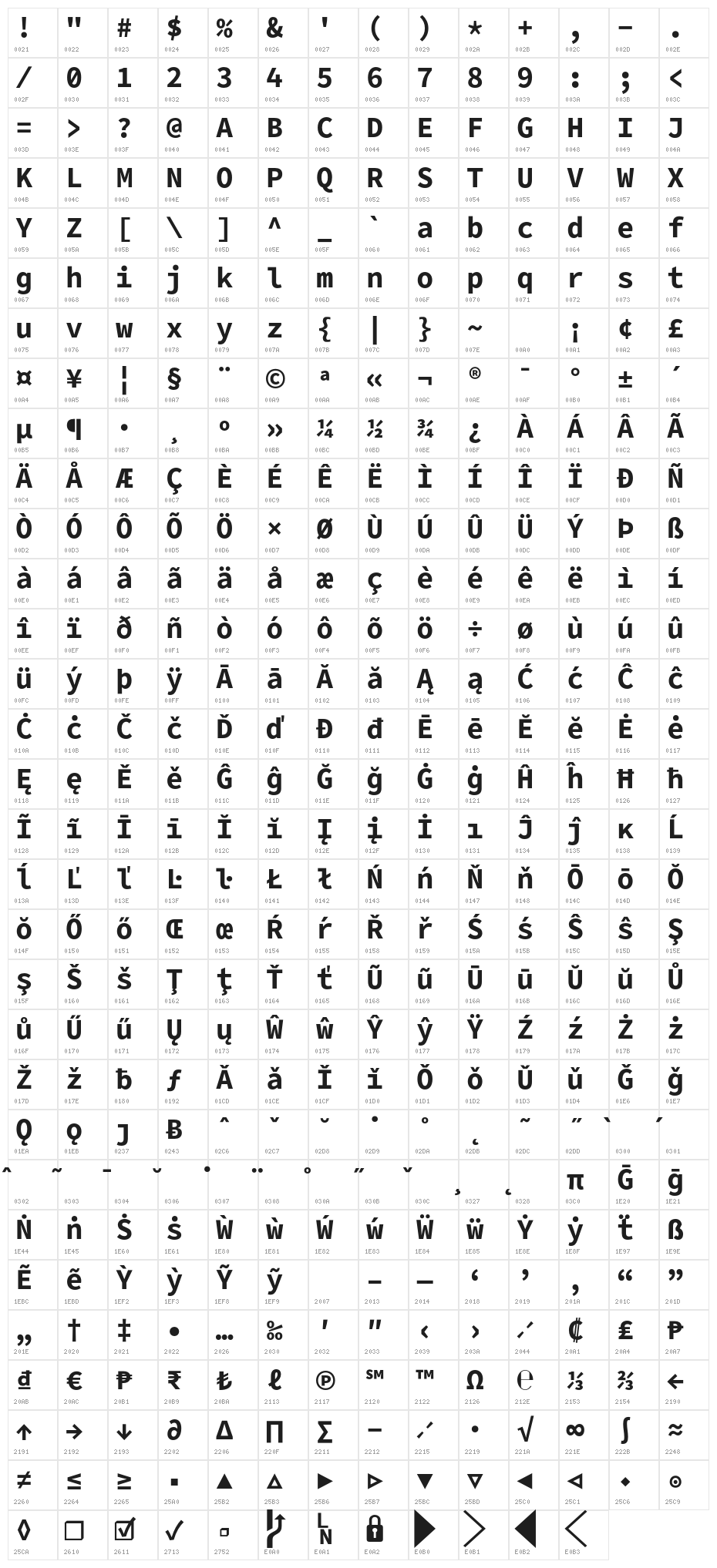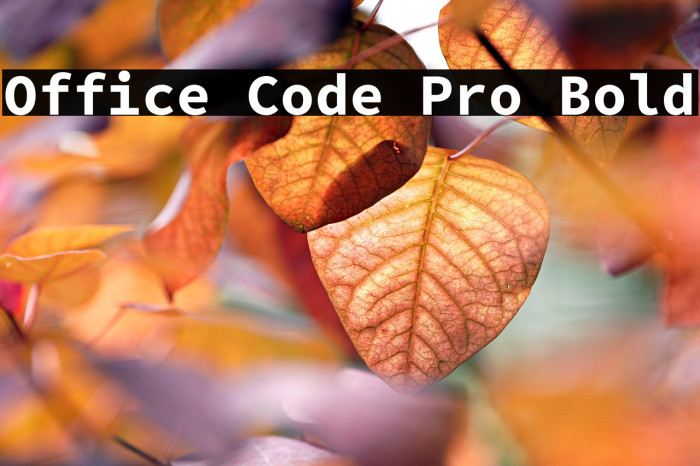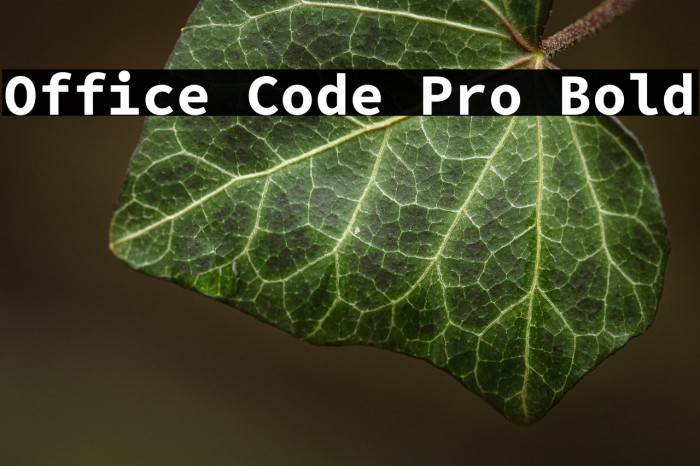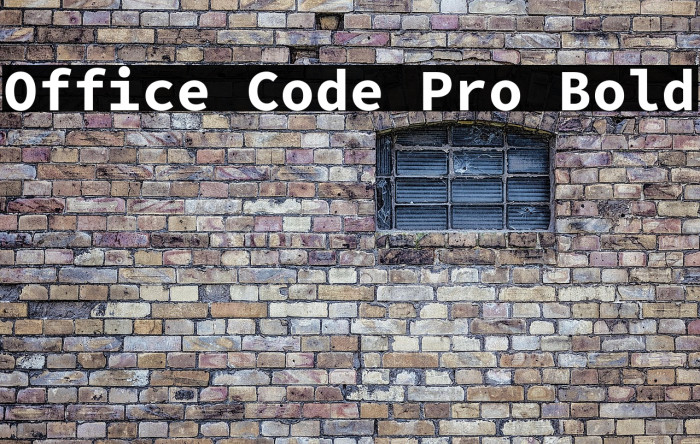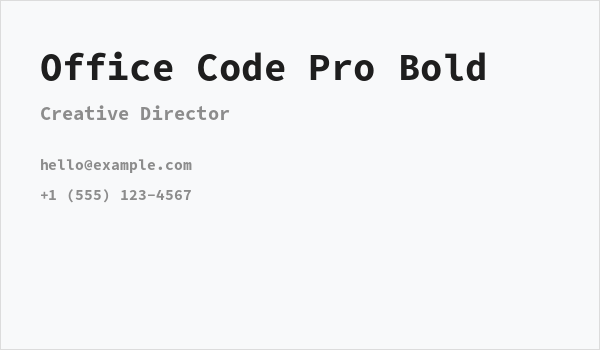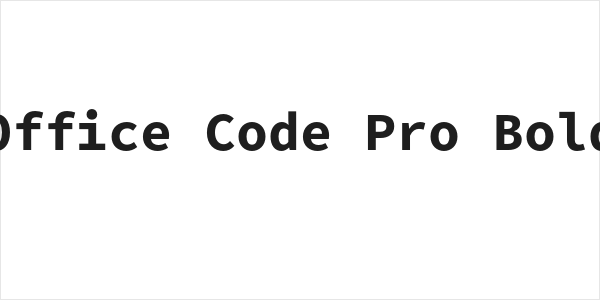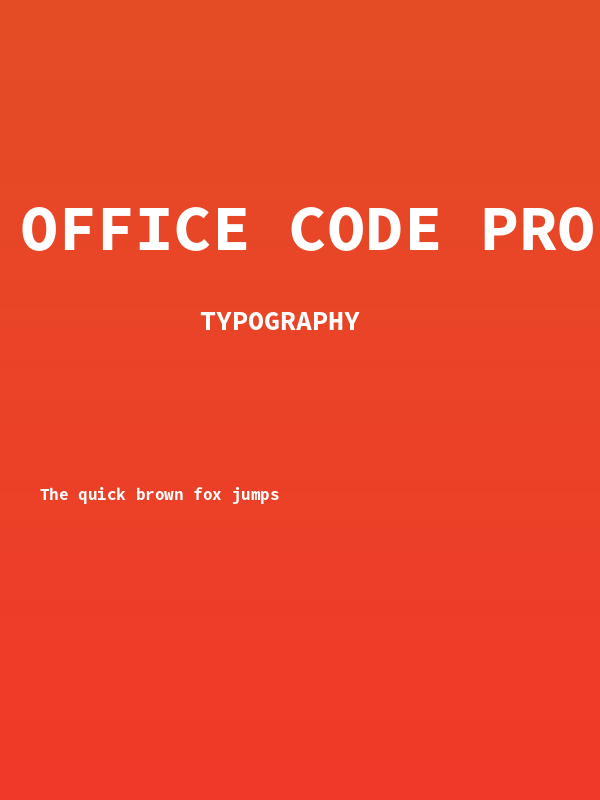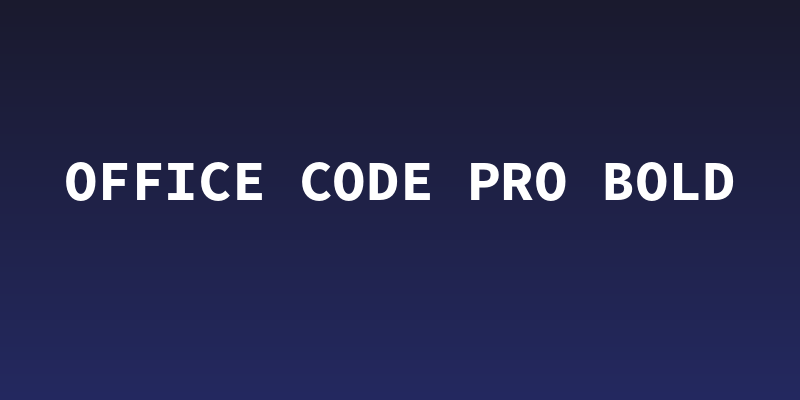
Office Code Pro Bold Font
Office Code Pro Bold Description
This font features a clean and modern design with a strong emphasis on readability and functionality. The characters are bold and well-defined, making them ideal for both digital and print media. The uppercase and lowercase letters maintain a consistent style, with uniform stroke widths that contribute to a balanced appearance. The numerals are clear and distinct, ensuring easy legibility. Special characters are included, providing versatility for various applications. The overall design is straightforward yet impactful, suitable for professional and creative projects alike.
| Use Case | Headlines, Body text, Logos, Coding |
| Proposed Projects | Ideal for coding environments, technical documentation, headlines, and branding materials. |